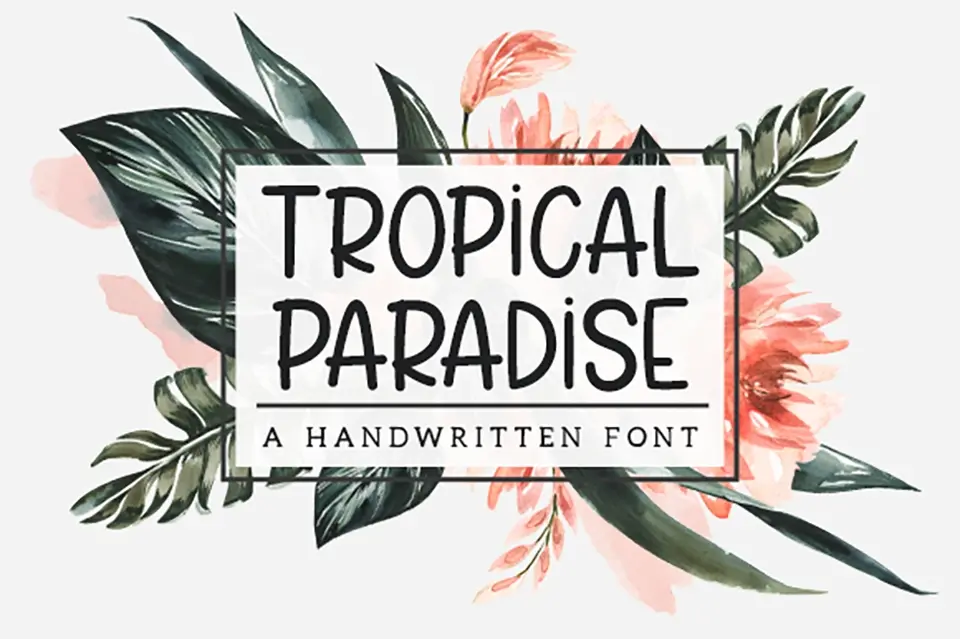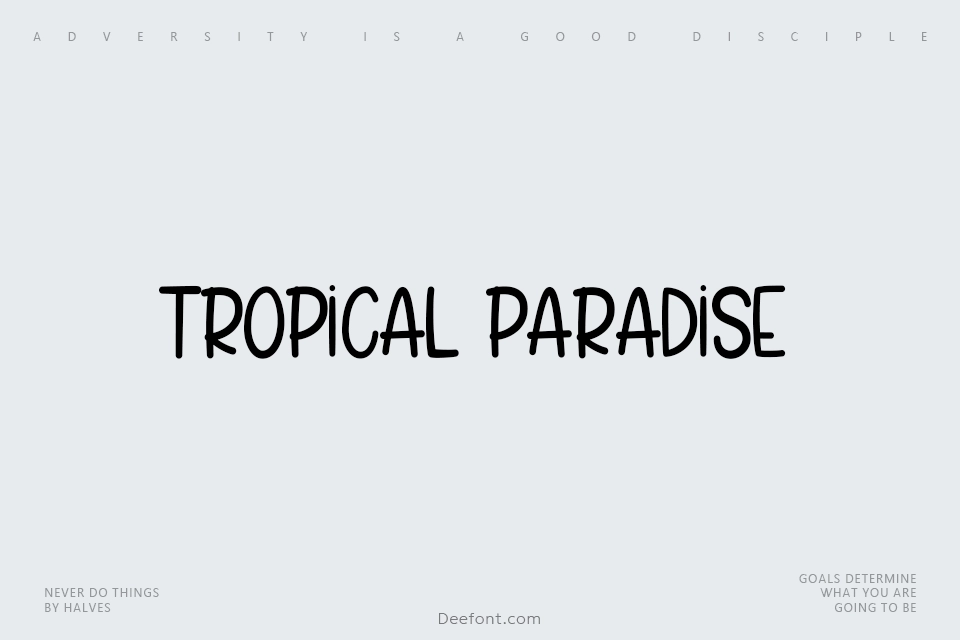
Tropical Paradise Font
Tropical Paradise is an eye-catching handwritten script font that exudes warmth and friendliness with its smooth, flowing lines and delicate strokes. Perfect for tropical-themed projects, summer events, and creative designs, this versatile typeface combines classic sophistication with contemporary charm. Its vibrant spirit and playful details make it ideal for promotional materials, posters, invitations, and social media content that demands an exotic and welcoming atmosphere.